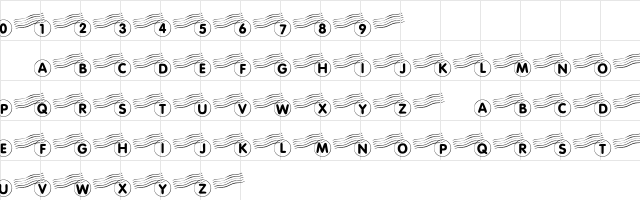
101! Postmarked Regular Font Preview
101! Postmarked Regular
101! Postmarked Regular Font Details
Design Context for 101! Postmarked Typeface
101! Postmarked is a composed and adaptable typeface that performs quietly and consistently across a wide range of design contexts.